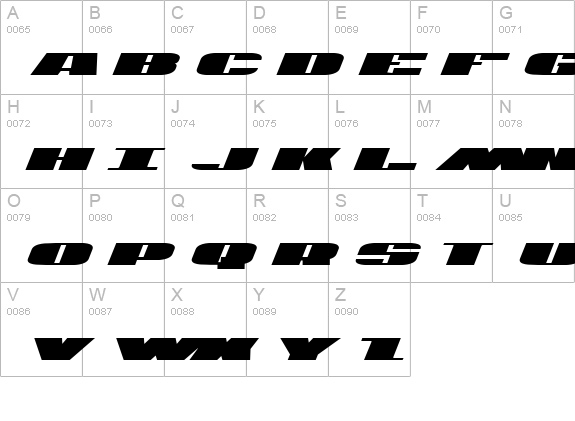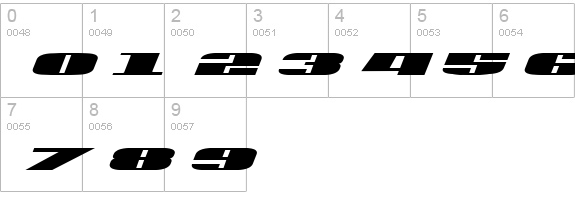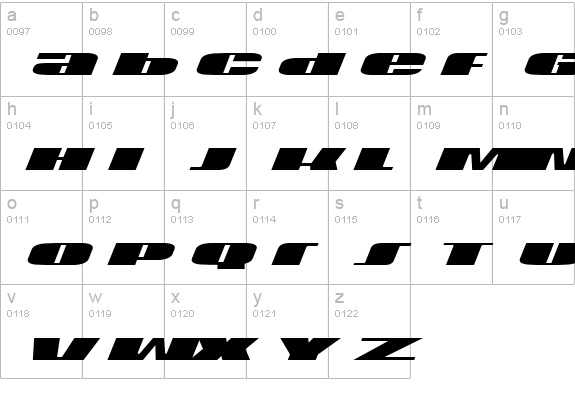
U.S.A. Italic is a distinctive, italic variant in the U.S.A. typeface family \xE2\x80\x94 well suited to design and typography projects.
U.S.A. Italic font is a stunning typeface that effortlessly captures the essence of American pride and spirit. Its sleek and bold design beautifully embodies the strong and independent nature of the United States of America. With its distinctive slanted letterforms, U.S.A. Italic font stands out among other fonts, making it the perfect choice for various design projects that require a touch of patriotism and modernity. Whether you are designing a logo for a national event or creating eye-catching headlines for a promotional campaign, U.S.A. Italic font will undoubtedly leave a lasting impression. What sets U.S.A. Italic font apart is not only its striking visual appeal but also the fact that it is freely available to download at FontsMarket.com. This means that you can easily access and utilize this remarkable font for all your personal and commercial projects without any restrictions or limitations. The versatility of U.S.A. Italic font allows it to be seamlessly integrated into various design applications, from print materials such as posters, flyers, and brochures to digital platforms like websites, social media graphics, and presentations. Its clean and legible characters ensure clear communication, while its italicized style adds a touch of elegance and sophistication. Whether you are a professional designer or a passionate enthusiast, U.S.A. Italic font offers you the opportunity to add a touch of Americana to your creations effortlessly. So why wait? Download U.S.A. Italic font now from FontsMarket.com and let your designs soar with the spirit of freedom and creativity.